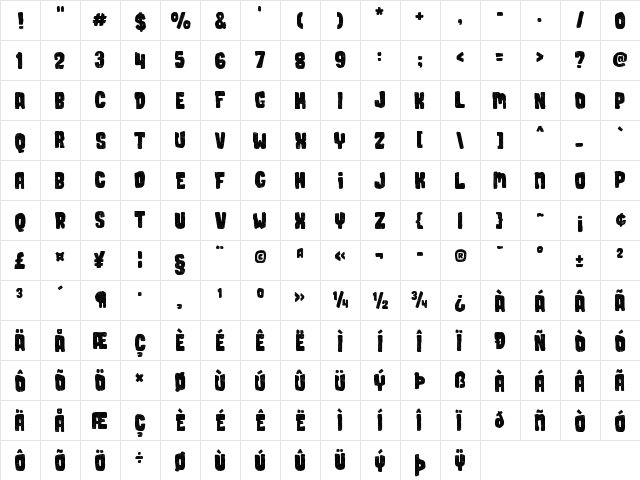
Sacremende Distressed
| Foundry | Lauren Ashpole |
| Designer | Lauren Ashpole |
Design Context for Sacremende Typeface
Sacremende embraces imperfection — its rough, textured character adds raw authenticity to designs that want to feel lived-in and unconventional.
Suited to punk-influenced zines, underground music branding, streetwear, and raw, anti-corporate design.
Pro Tip: Pair Sacremende with intentionally raw or lo-fi design elements. Fighting against it with overly polished surroundings will undermine its personality.